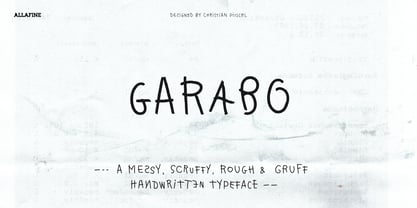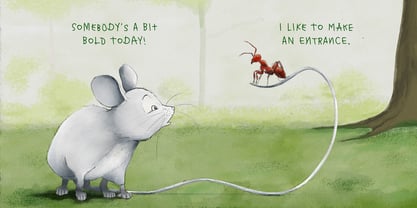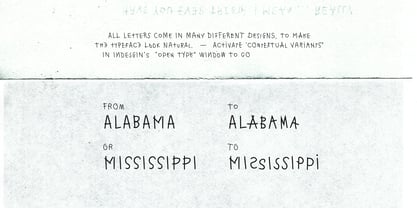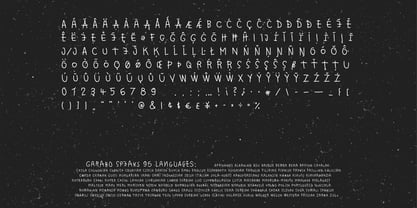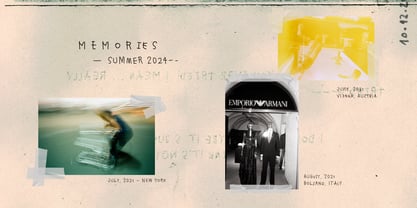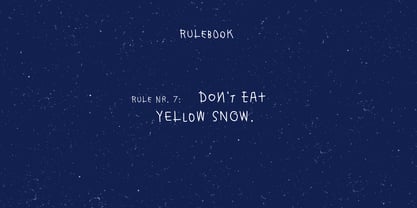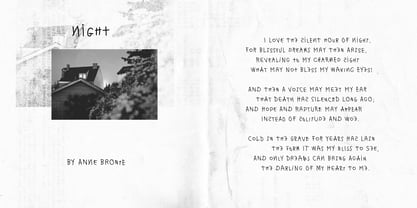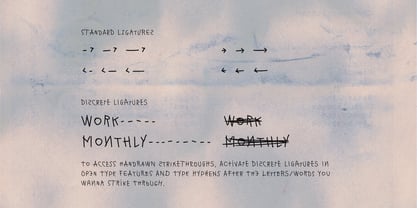
Garabo
by Allafine
The Garabo Font Family was designed by Christian Pitschl and published by Allafine. Garabo contains 1 styles.
Garabo is a wild, scratchy, handwritten typeface full of personality and spontaneity. Designed to look as if it were scribbled straight onto the page, Skretch features a rich set of contextual alternates to ensure each letter feels unique — just like real handwriting.
Whether you're crafting an expressive editorial headline, a nostalgic birthday card, or playful packaging, Skretch adds a touch of joyful chaos and human warmth to your design.
– OpenType features: contextual alternates
– Perfect for: posters, poetry, invitations, kids' books, and branding with a human twist.